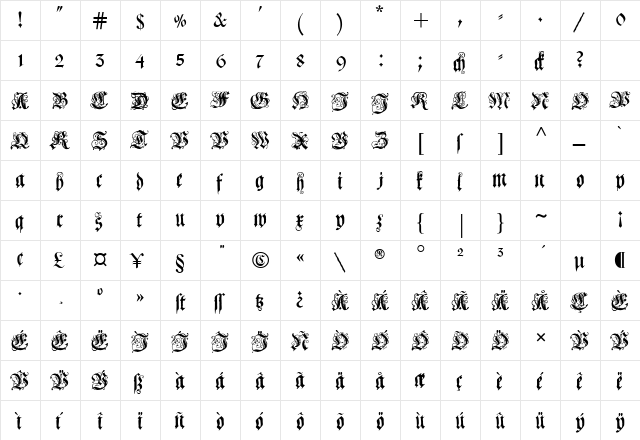
Coelnische Current Fraktur Regular
Design Context for Coelnische Current Fraktur Typeface
Coelnische Current Fraktur draws on the rich tradition of blackletter calligraphy, with dense, angular strokes that evoke medieval manuscripts and old-world craftsmanship.
Well-suited to band logos, craft beer branding, tattoo lettering, and heritage-themed identities.
Font Pairing: Pair with a clean neutral sans-serif for body copy to let Coelnische Current Fraktur's character lead without overwhelming the composition.
Pro Tip: Use Coelnische Current Fraktur sparingly at large sizes. Even a single word set in blackletter can define the visual register of an entire design.